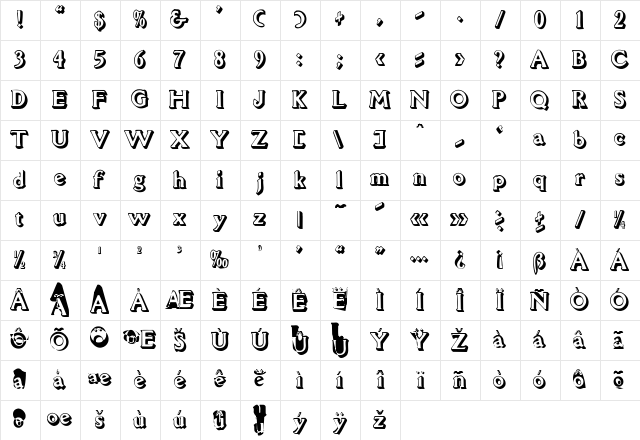
Avignon Normal Free Font
Avignon Normal
Complete Avignon Normal glyph index. Displaying only characters natively supported by Avignon Normal font.
Design Context for Avignon
Avignon is a composed and adaptable typeface that performs quietly and consistently across a wide range of design contexts.